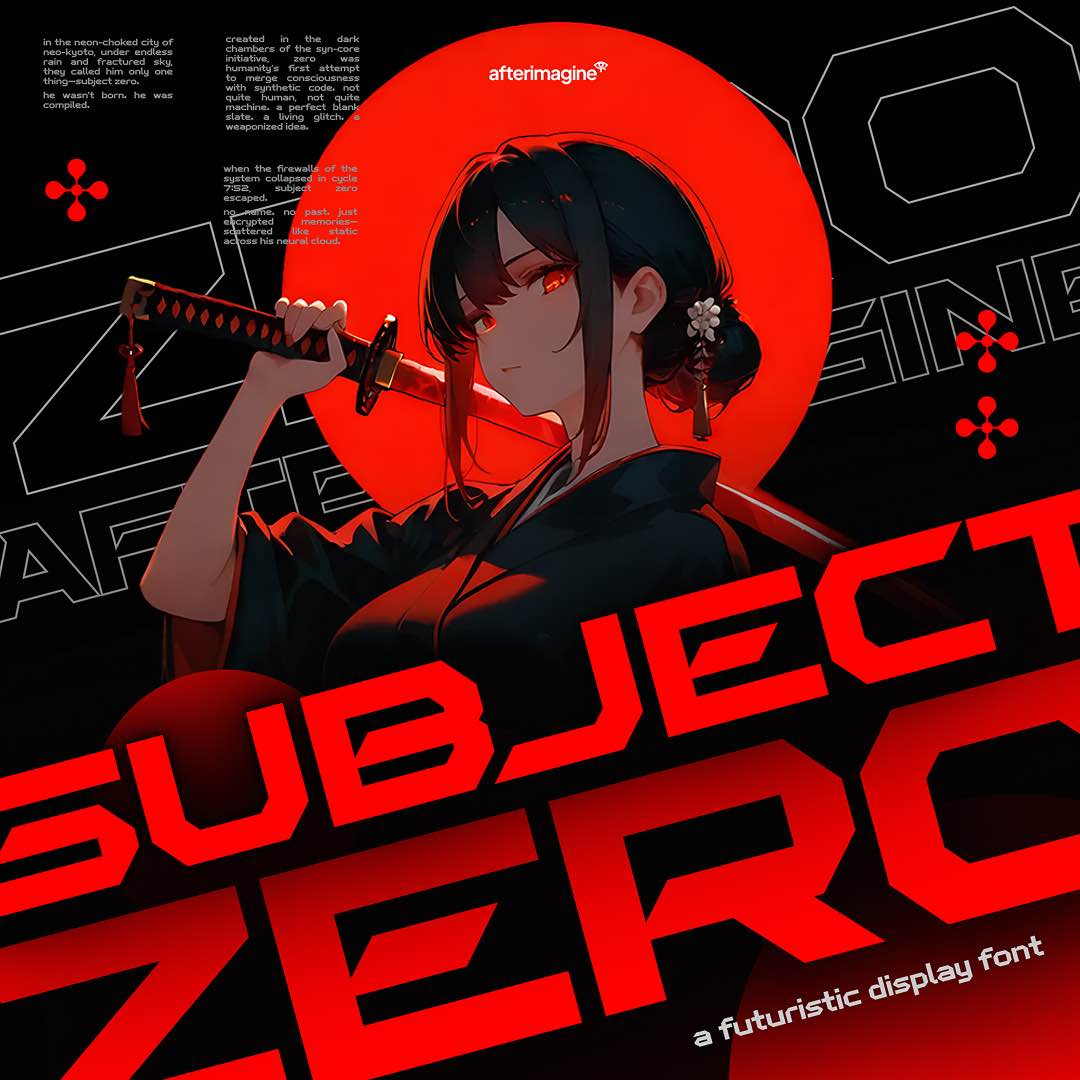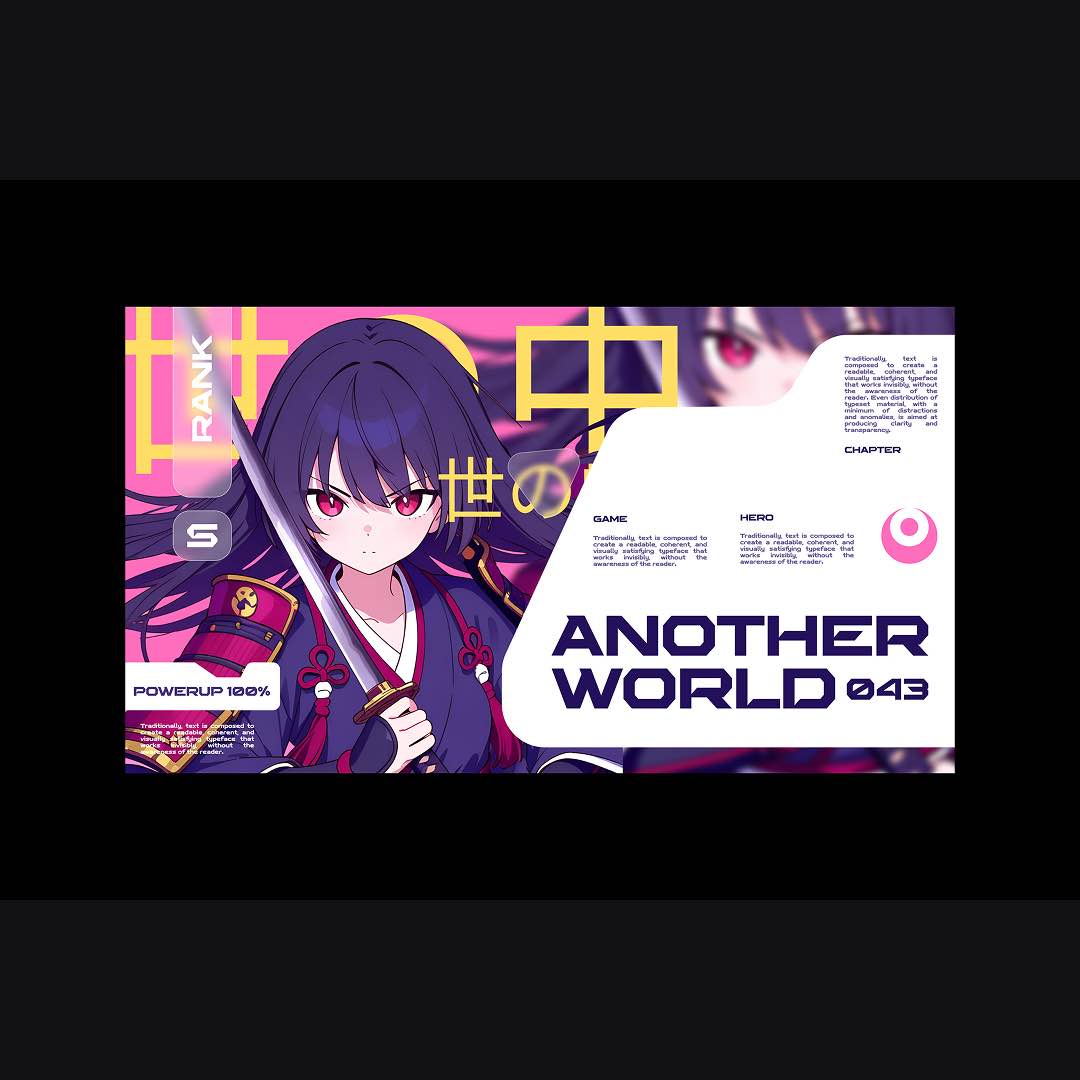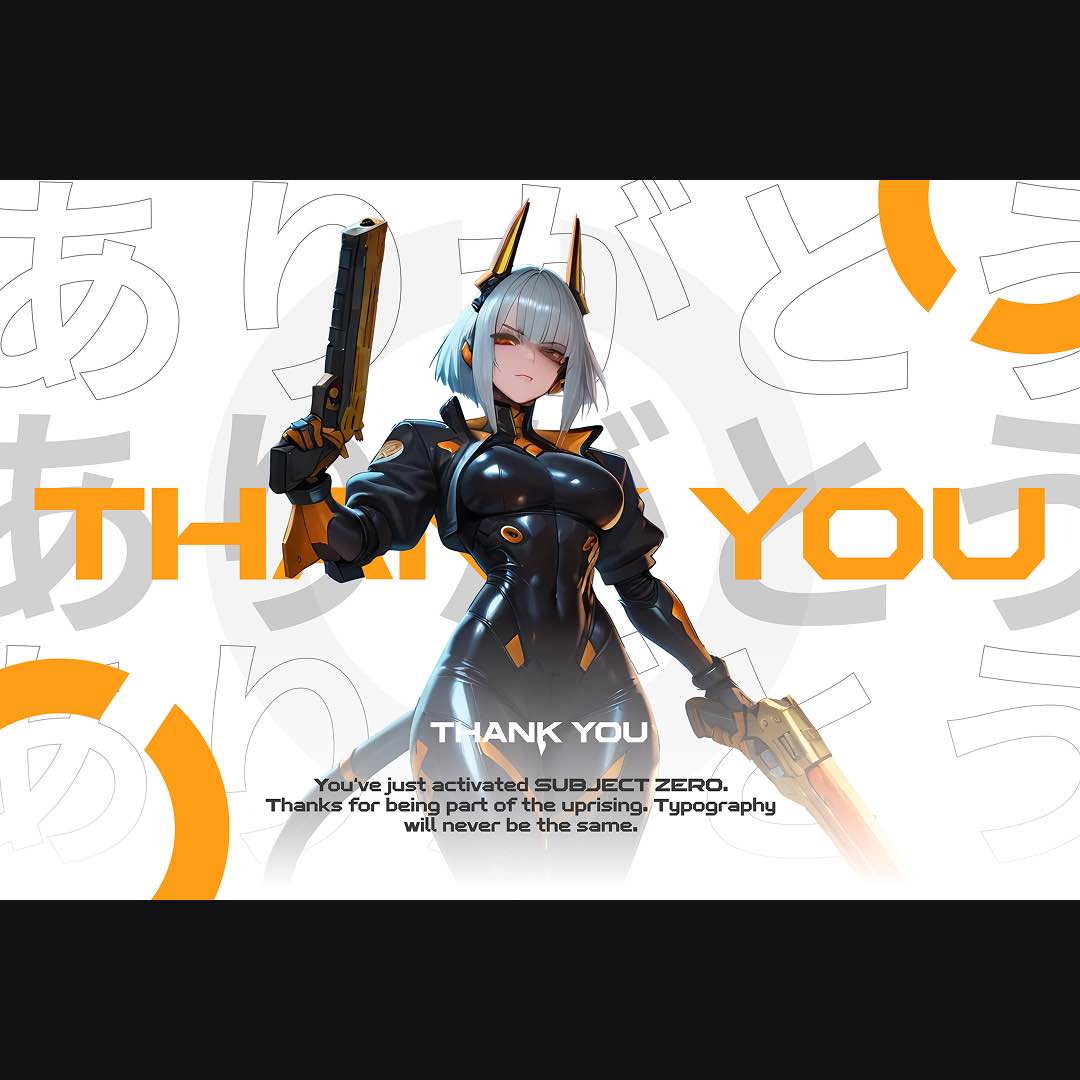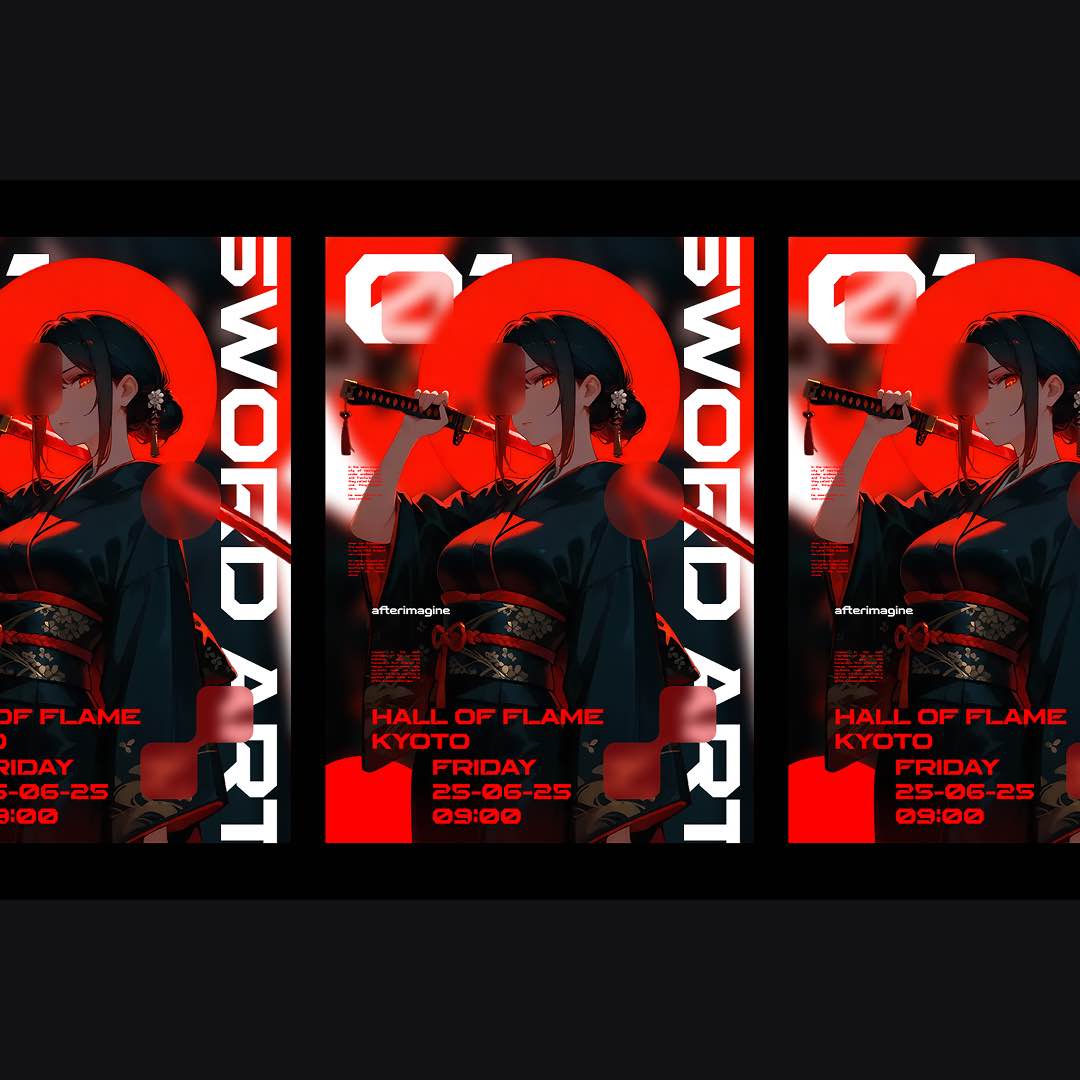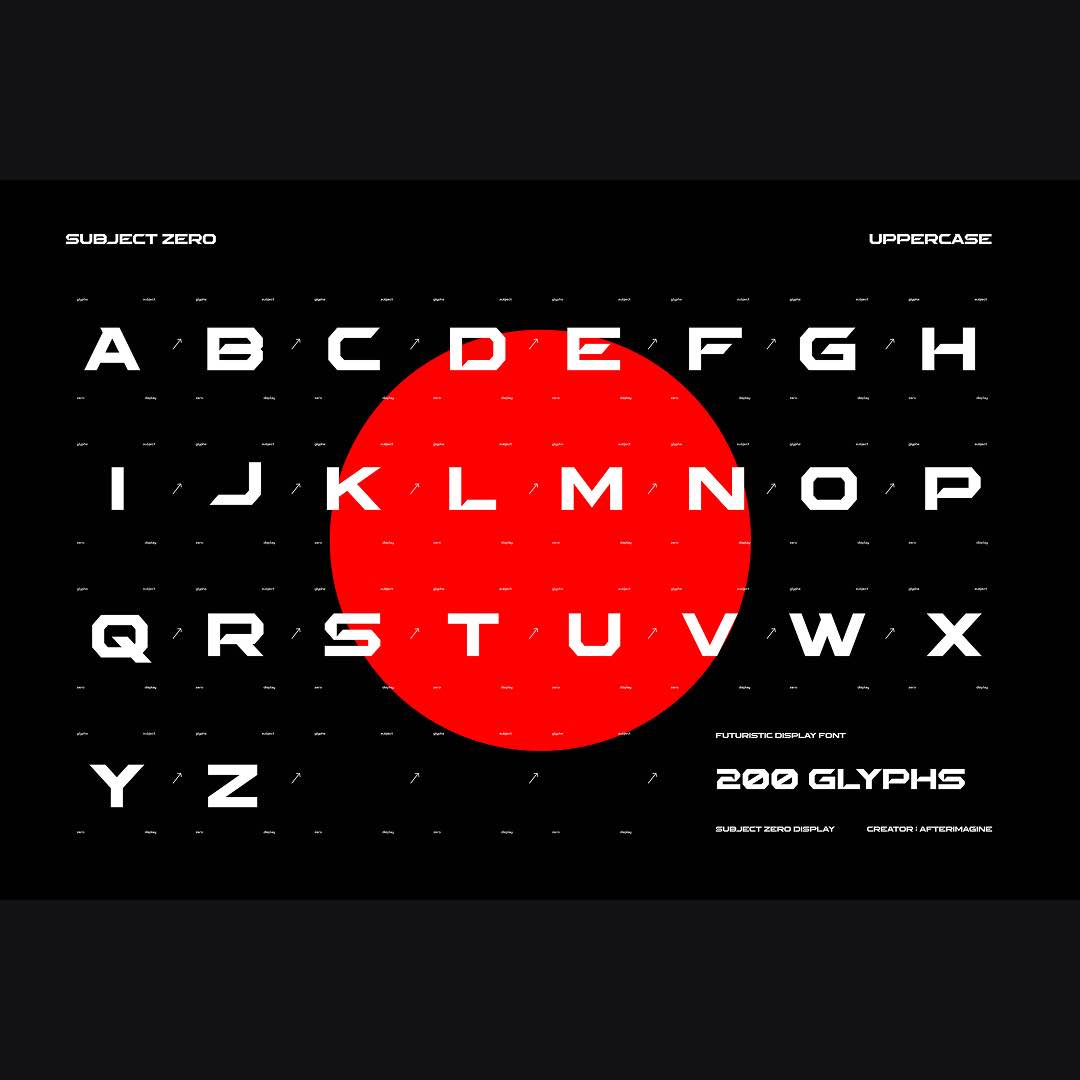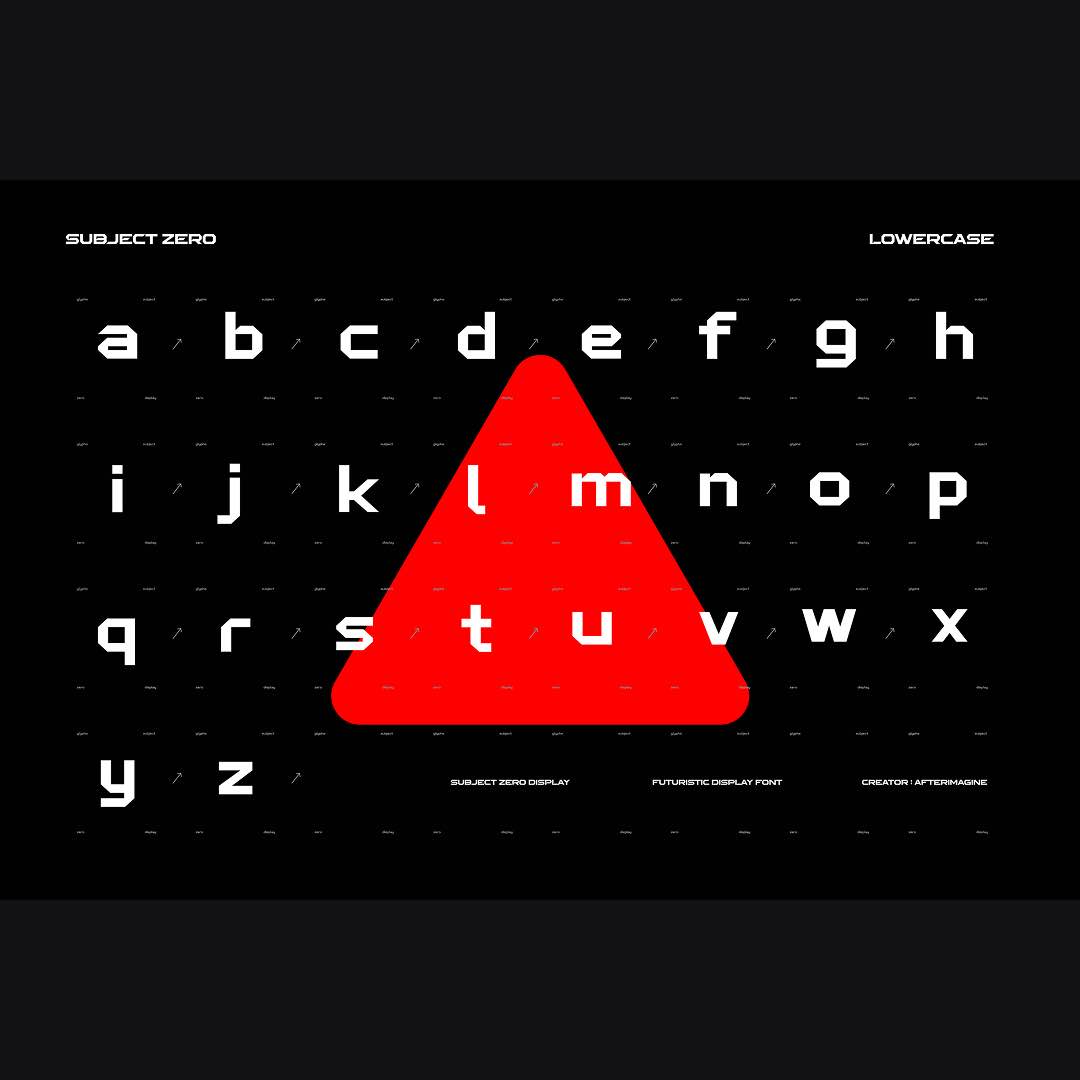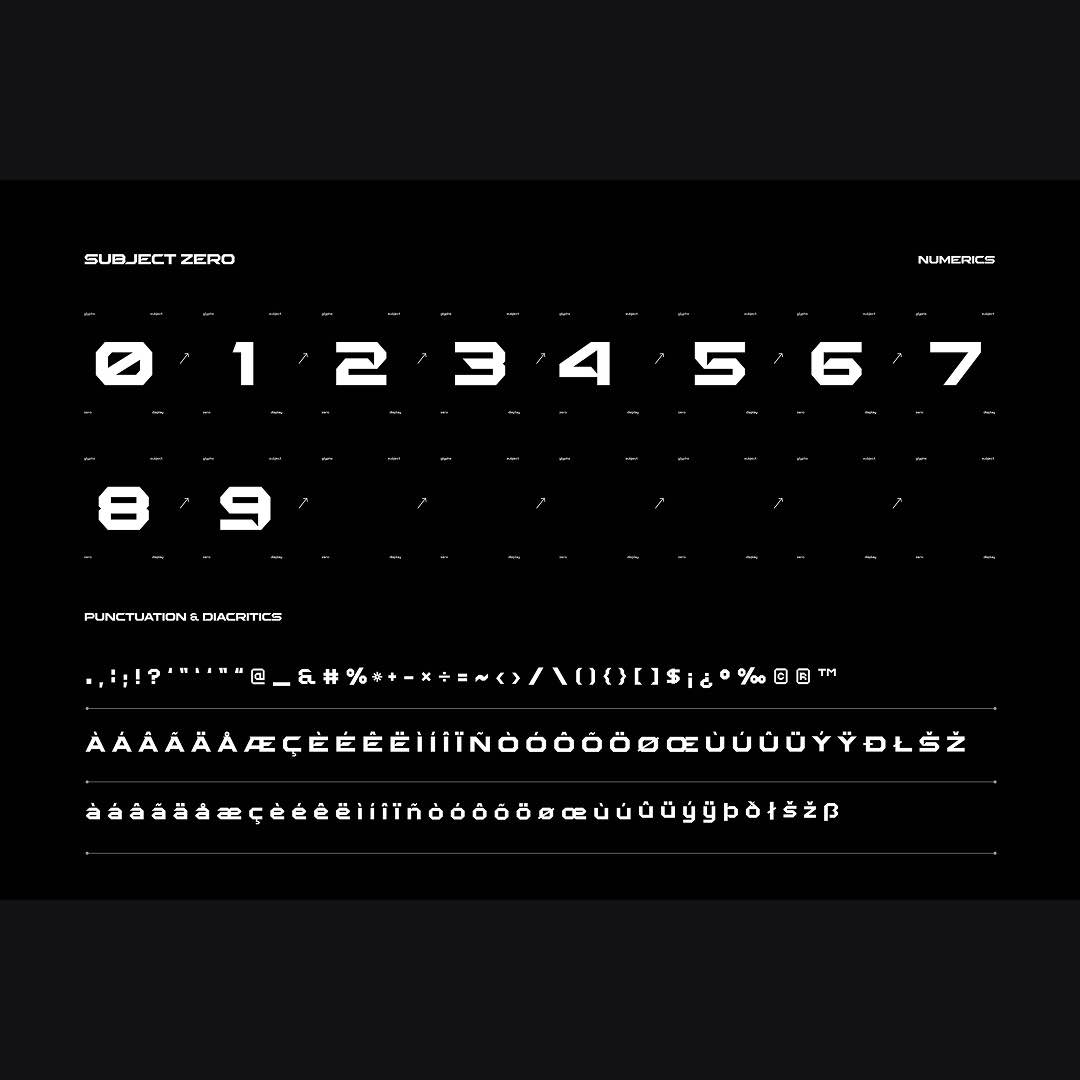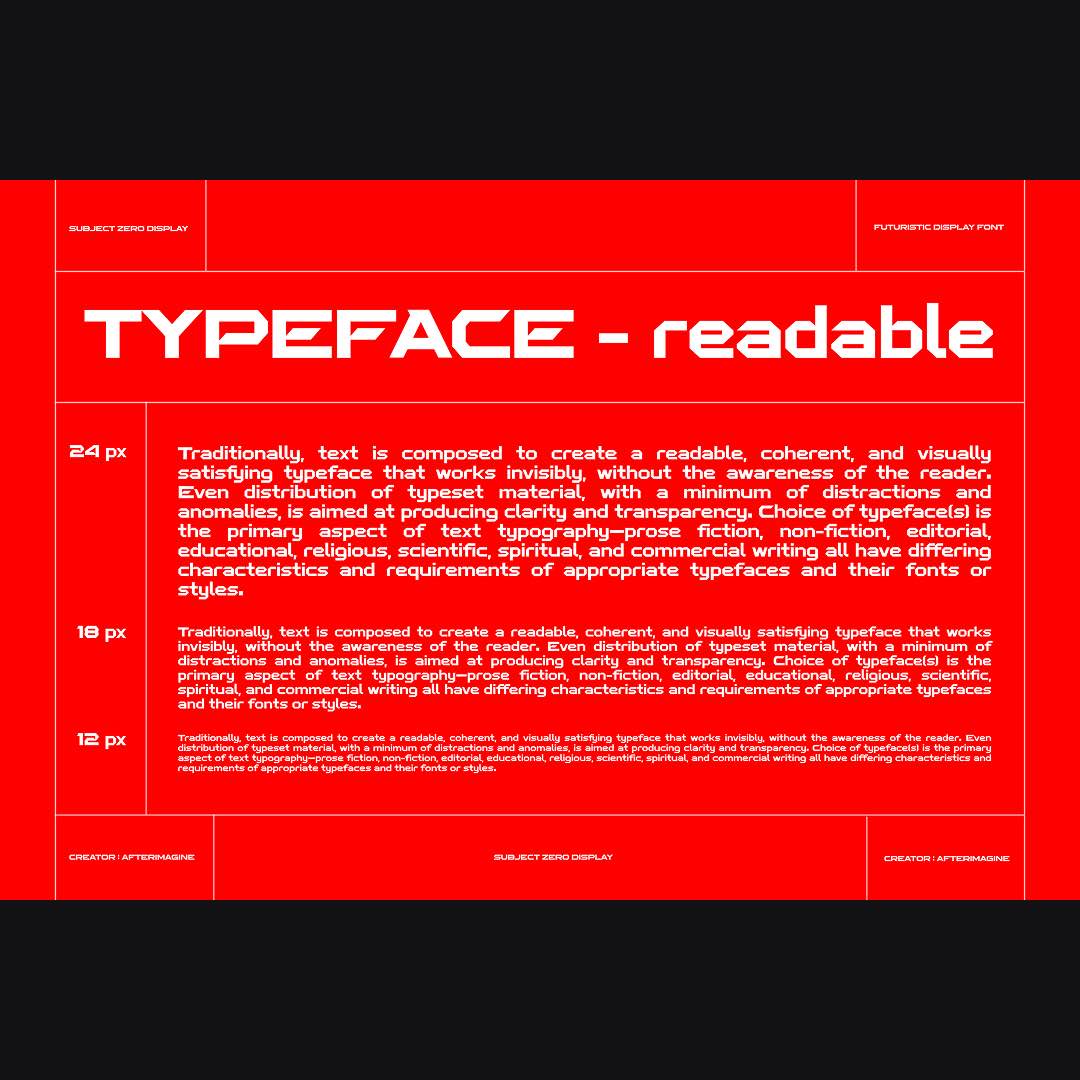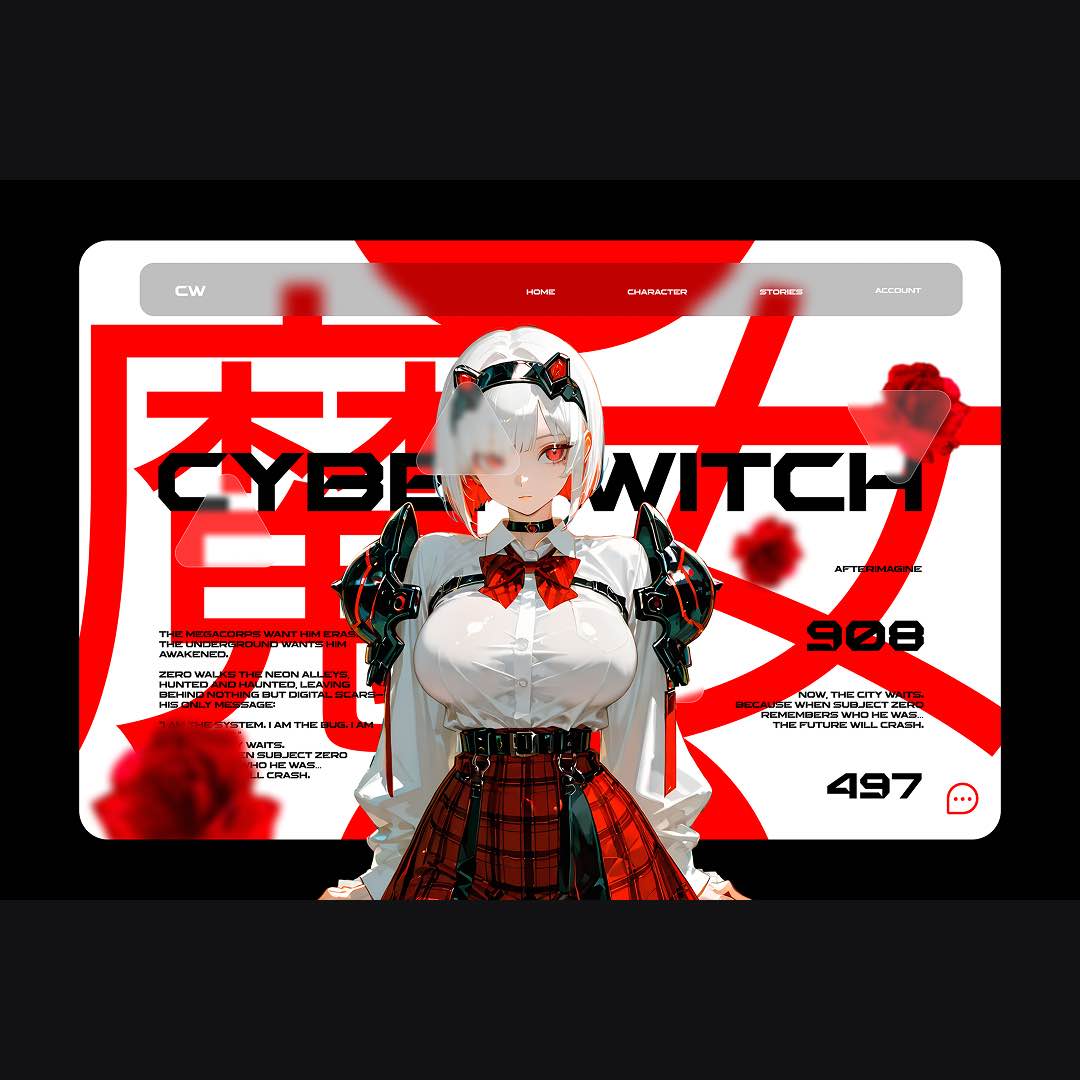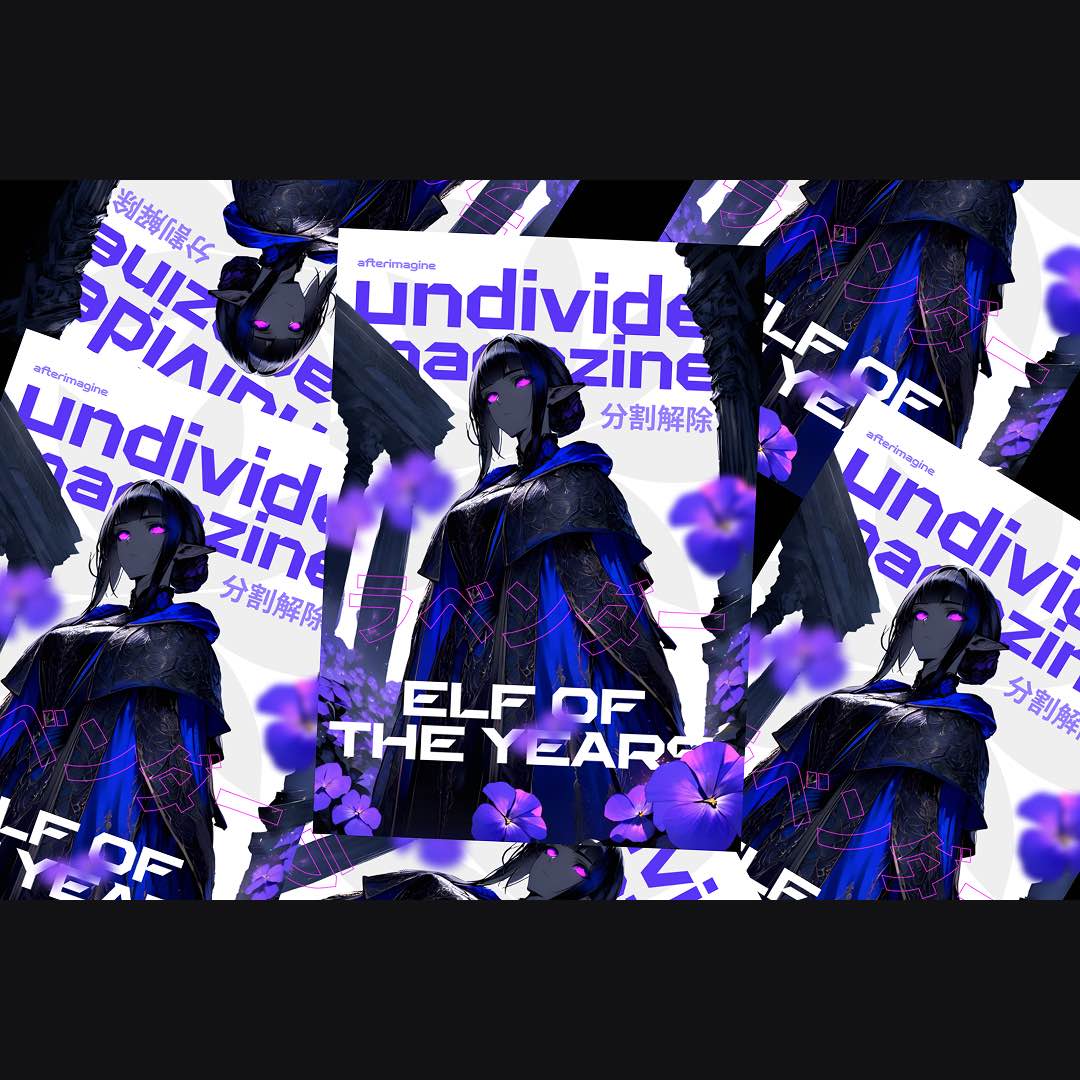
Subject Zero
Welcome to Subject Zero, a razor-edged futuristic display font engineered for those designing in the red zone of style.
Bold, angular, and unapologetically digital, this typeface fuses cyberpunk aggression with mechanical precision.
Whether you’re building dystopian interfaces, experimental posters, gaming titles, or neon-drenched album art, Subject Zero delivers that high-voltage kick your design’s been starving for.